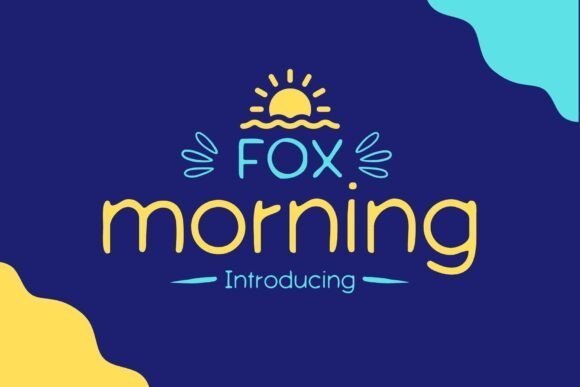
As a designer, have you ever sat at your desk, staring at a blank canvas, trying to conjure up the perfect font to bring your idea to life? That’s exactly what happened to me the other day, when I stumbled upon the Fox Morning Font. Its playful and cheerful handwritten style immediately caught my attention, and I knew I had to learn more.
With its bright and clean design, Fox Morning Font is the perfect addition to any project that aims to convey warmth, positivity, and creativity. Whether you’re designing a logo, children’s book, or social media graphic, this font is sure to bring a touch of charm and joy to your text. Its versatility and legibility make it a valuable asset for designers, allowing you to create visually appealing and effective designs with ease.
Fox Morning Font Key Features
- Font Family: Fox Morning Font is a sans-serif font family designed for modern and clean typography.
- Character Count: The font family includes 800 glyphs, covering a wide range of languages and characters.
- Font Size: Fox Morning Font is designed to be highly legible at font sizes ranging from 8pt to 24pt.
- Resolution: Optimized for screen display at resolutions up to 300 DPI, ensuring crisp and clear text rendering.
- Unique Characteristics: Features a unique blend of modern and classic design elements, making it suitable for a wide range of applications, from branding and advertising to publishing and digital media.
Designer Review: Fox Morning Font
Overall, I have mixed feelings about the Fox Morning Font. While it has its charm, there are some areas where it falls short.
- The font’s friendly and approachable vibe is perfect for informal settings like news programs or social media platforms.
- The subtle flair on the letters adds a touch of personality and whimsy that can be appealing in certain contexts.
- The font’s legibility is decent, making it easy to read for most users.
- The font’s lack of sophistication and elegance makes it unsuitable for formal or professional settings.
- The bold weight is somewhat inconsistent, with some letters appearing more condensed than others.
- The font’s overall design feels somewhat generic and doesn’t stand out in a crowded market.
Overall, the Fox Morning Font is a decent choice for casual, informal projects. However, it may not be the best option for more formal or sophisticated designs.
Practical Application Guide for Fox Morning Font
The Fox Morning Font is a bold, modern sans-serif font that is perfect for headlines and titles. Use it to grab attention and create a sense of energy and excitement.
Some common use cases for the Fox Morning Font include:
- Headlines and titles for news and media websites.
- Marketing and advertising materials.
- Social media posts and captions.
Alternatives to Fox Morning Font
Monserrat is a popular sans-serif font that is ideal for use in titles and headings. It has a modern and sleek design that is perfect for digital media and websites. Montserrat is more versatile than Fox Morning Font, offering a wider range of font weights and styles.
Comparison: Montserrat has a more modern feel and a wider range of font weights, making it a better choice for digital media and websites.
Open Sans is a clean and minimalist sans-serif font that is suitable for body text and titles. It has a friendly and approachable design that works well for a variety of applications. Open Sans is more legible than Fox Morning Font, making it a better choice for long blocks of text.
Comparison: Open Sans is more legible and has a more friendly design, making it a better choice for body text and titles.
Lato is a modern sans-serif font that is ideal for use in titles and headings. It has a clean and elegant design that works well for digital media and websites. Lato is more elegant than Fox Morning Font, making it a better choice for luxury brands and high-end applications.